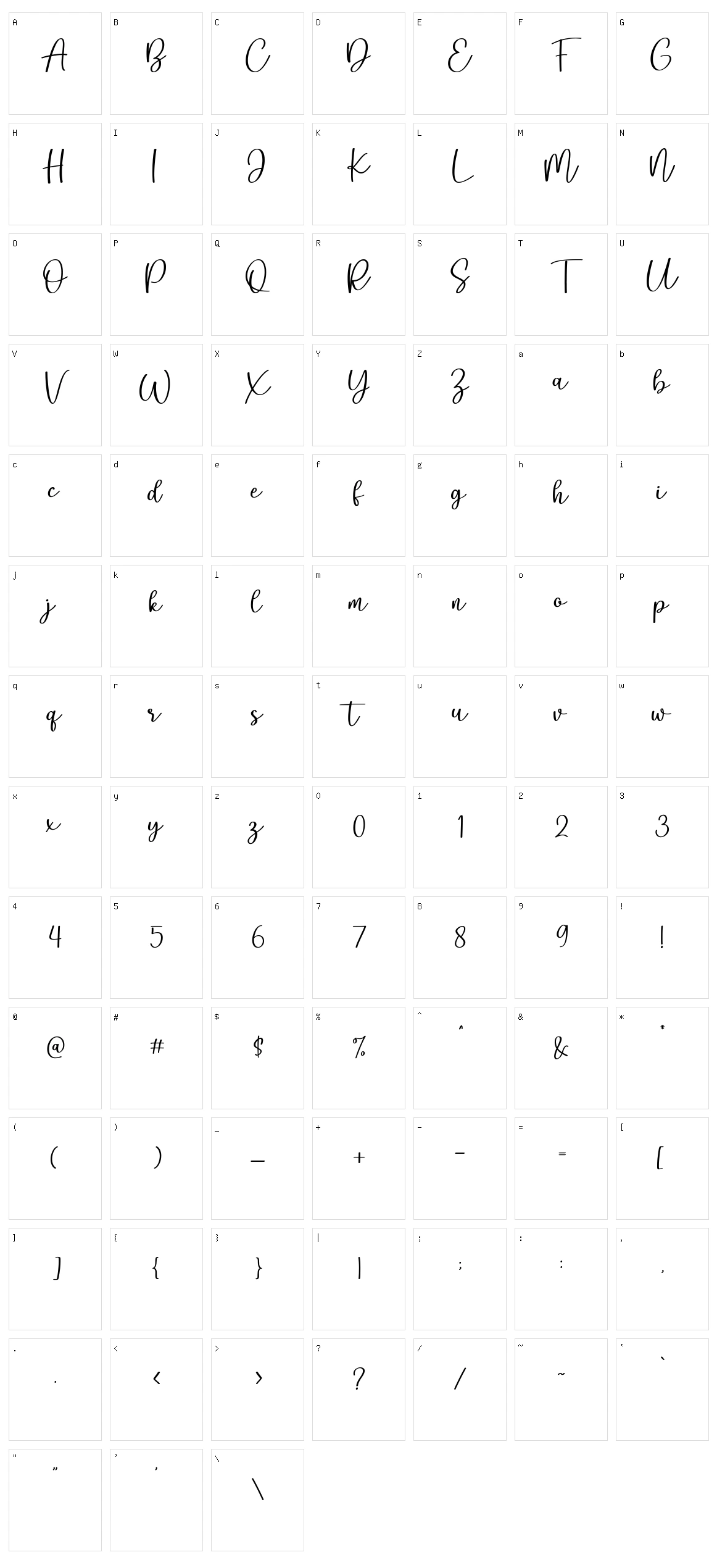
The free font Shine Brighter is carefully designed by Dav studio, showcasing a thoughtful balance of creativity and usability and falls under the Script font style. When you download the ZIP file, it contains only 693.57 KB of font files, making it lightweight and quick to download. Please review the license details below to understand permitted usage and distribution rights. If license information is not available, we recommend using this font for personal projects only or contacting the author directly for commercial usage permissions.